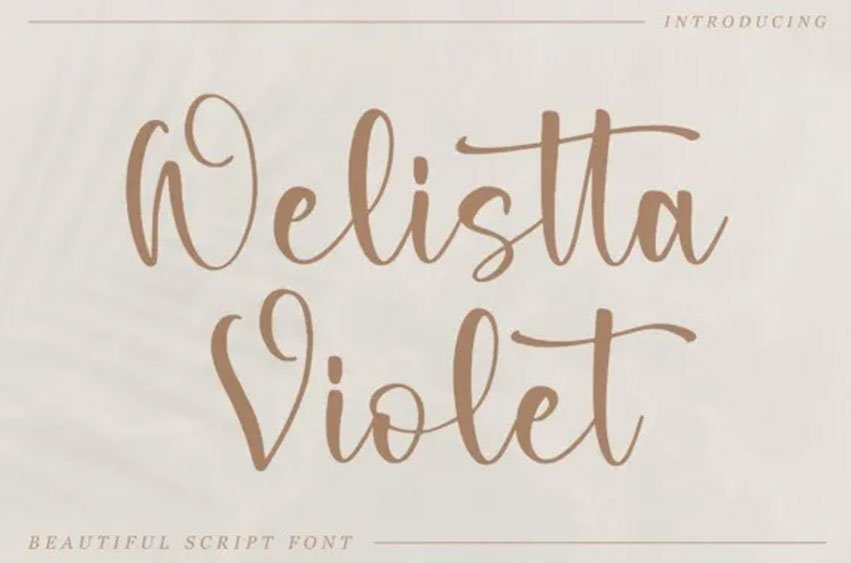
Welistta Violet Font Beautiful Script Font, from Letterfabric Studio, suitable for any projects such as logos, branding projects, homeware designs, product packaging, mugs, quotes, posters, shopping bags, t-shirts, book covers, name cards, invitation cards, greeting cards, label, photography, watermark, special events, and all your other lovely projects that need a beautiful script taste.